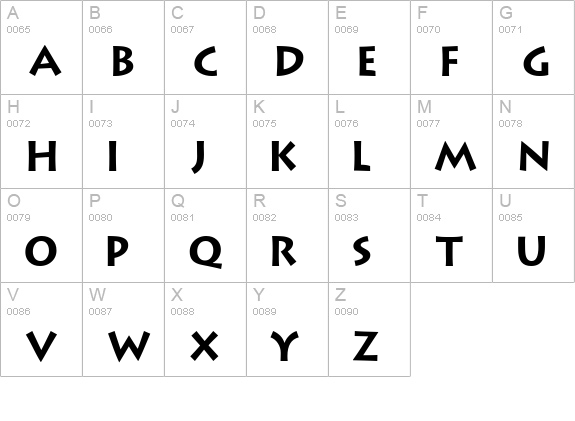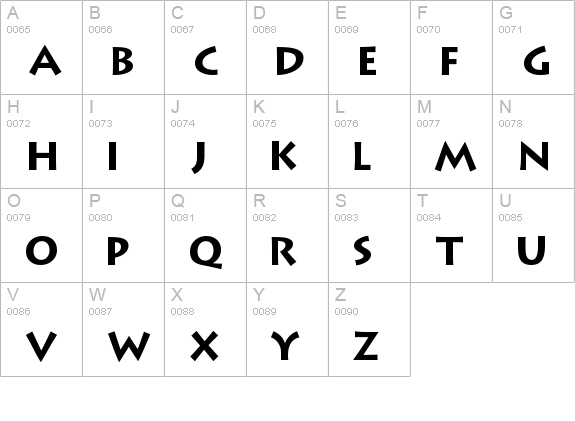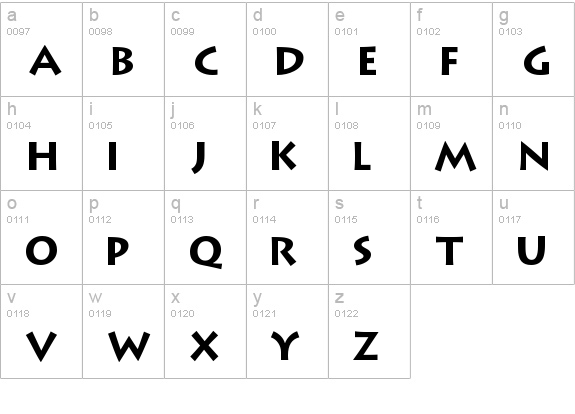
AustereCapsSSK Bold is a strong, high-contrast variant in the AustereCapsSSK typeface family \xE2\x80\x94 well suited to headlines, attention-grabbing titles, and strong calls-to-action.
AustereCapsSSK Bold font is a modern and stylish typeface that exudes sophistication and elegance. With its strong and bold letterforms, this font commands attention and makes a statement in any design project. Perfect for headlines, titles, and logos, AustereCapsSSK Bold font adds a touch of class and professionalism to your work. The best part? This exquisite font is available for free download at FontsMarket.com. Now you can elevate your designs without breaking the bank. Don't miss out on the opportunity to add AustereCapsSSK Bold font to your font collection today!